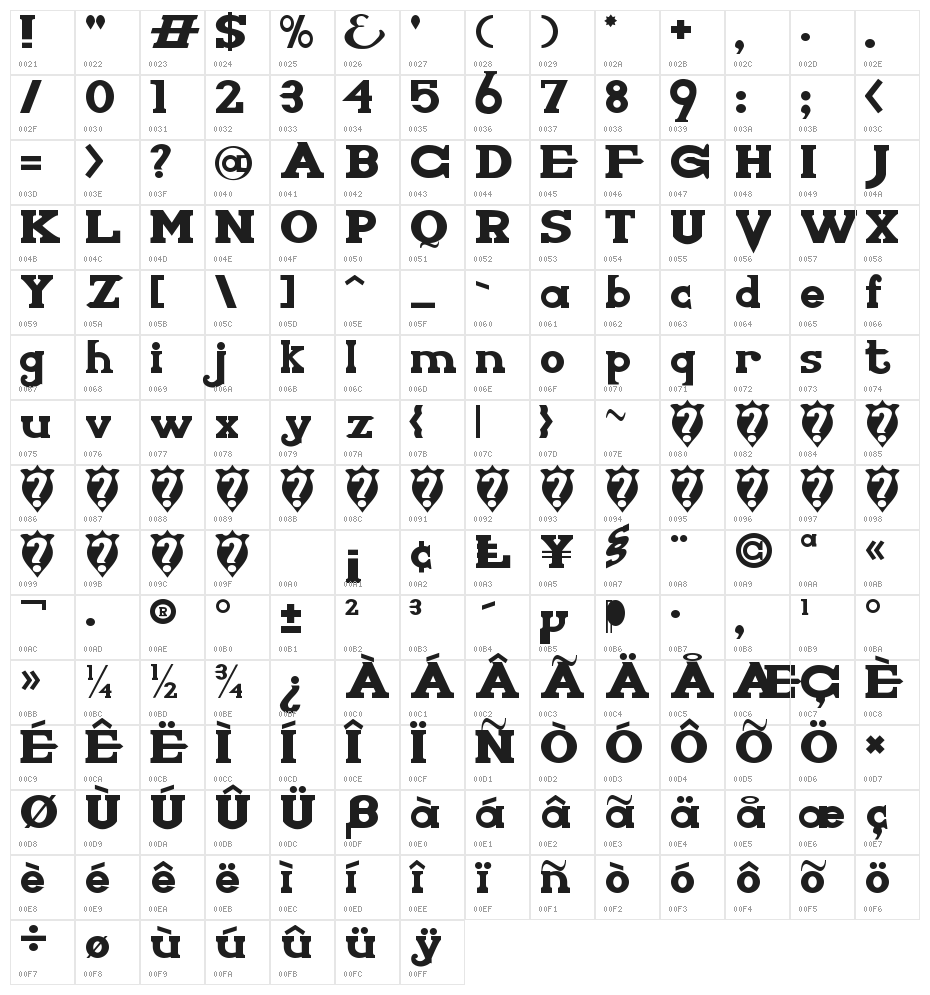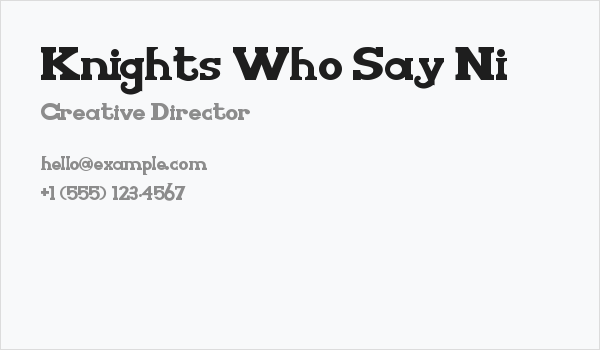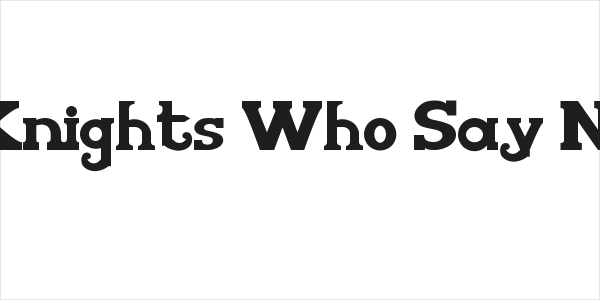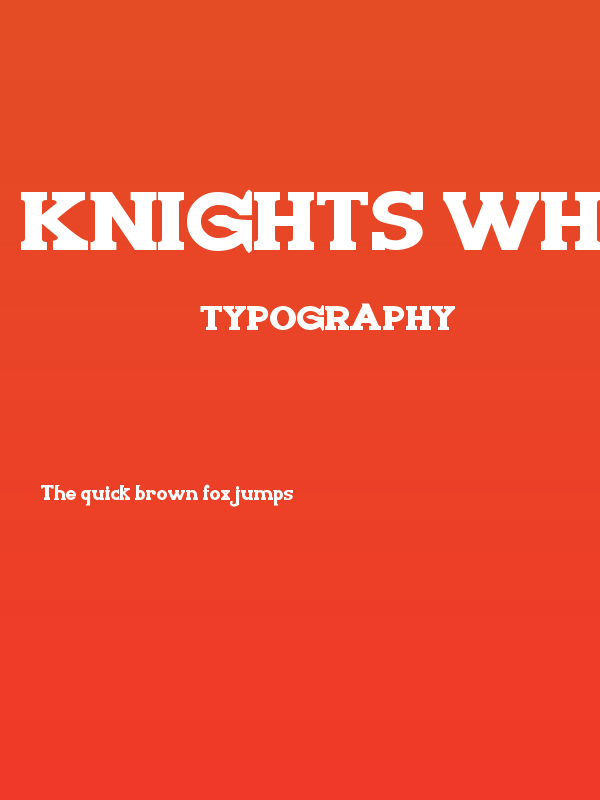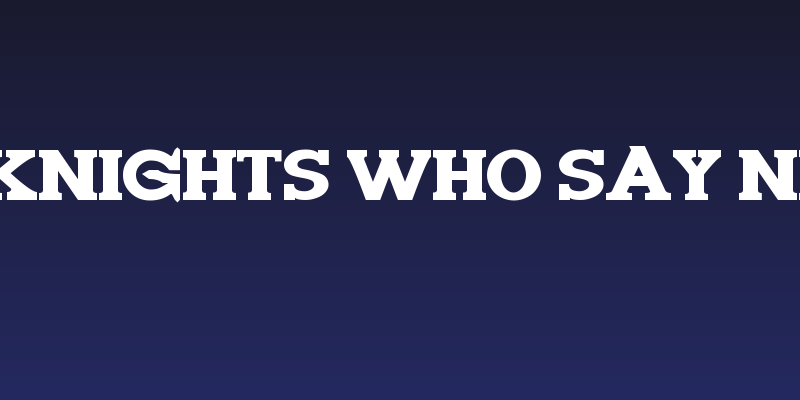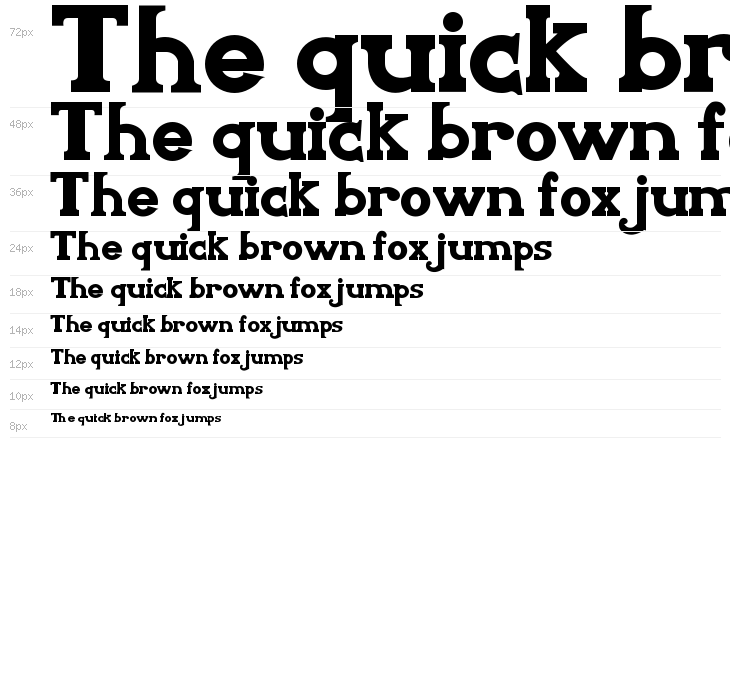
Knights Who Say Ni Font
Knights Who Say Ni Description
This font features a bold and robust design with distinct serifs that give it a strong and commanding presence. The uppercase letters are characterized by their wide and solid structure, while the lowercase letters maintain a consistent weight, providing a harmonious balance. The numerals are equally bold, ensuring readability and impact. Special characters are designed with unique flair, adding a decorative touch. Overall, the font exudes a vintage yet modern appeal, making it versatile for various design applications.
Overall StyleVintage
Proposed ProjectsIdeal for branding, headlines, posters, and any design project that requires a strong and memorable typeface.